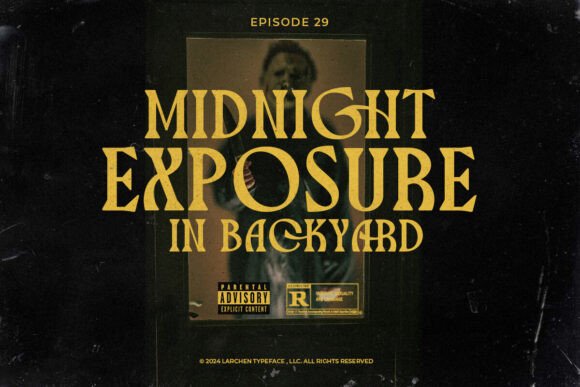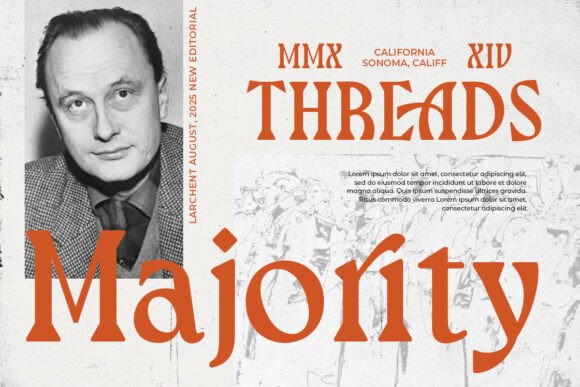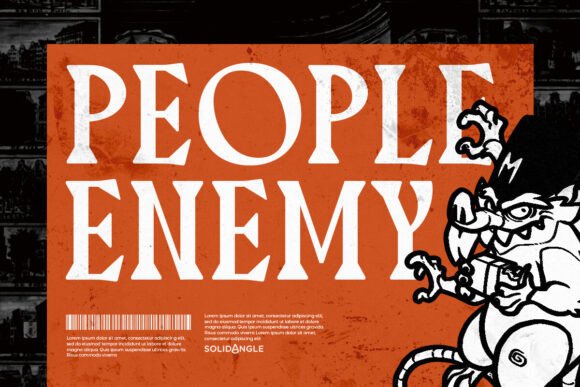
Introduction to Larchen Font
Larchen is a ligature serif with bold and strong style.
Comes with unique looks, this font will make your project more stand out and stunning With stylish ligatures that you can use to step up your designs level.
Larchen Font offers exceptional quality and versatility, making it a valuable addition to your design toolkit. Whether you’re creating for personal projects or commercial use, Larchen Font delivers professional results.